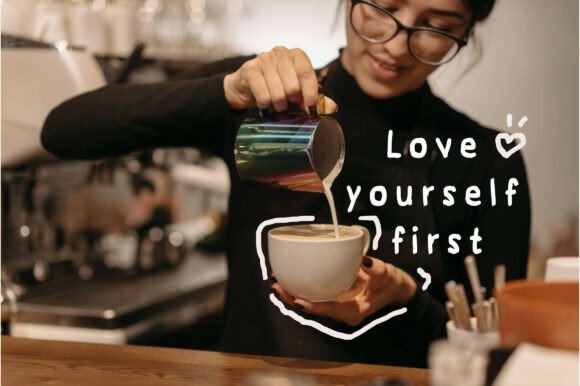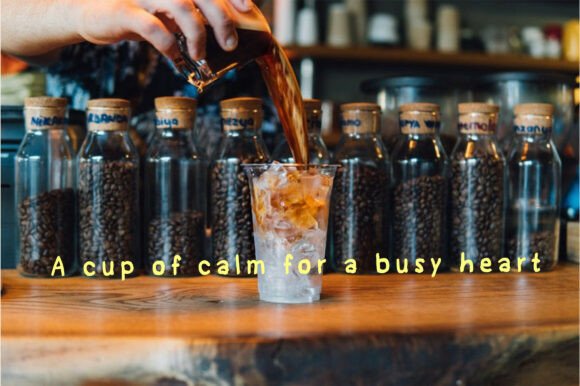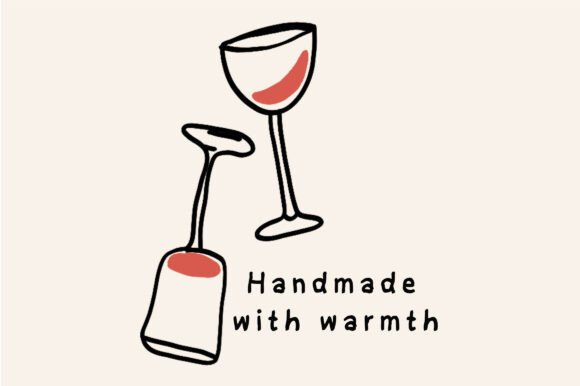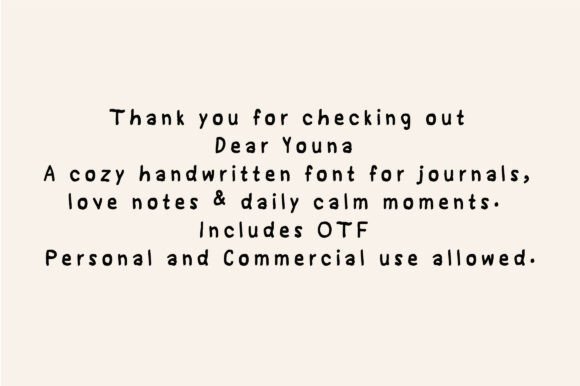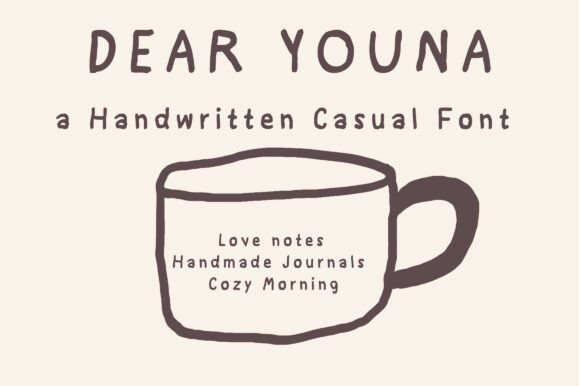
Introducing Dear Youna Font: The Cozy Handwritten Font for Your Creative Projects
Are you looking for a font that can add a touch of warmth and charm to your creative projects? Look no further than Dear Youna, a beautiful handwritten font that is perfect for a variety of applications. In this article, we’ll take a closer look at Dear Youna and explore its features, uses, and benefits.
What is Dear Youna Font?
Dear Youna is a carefully crafted handwritten font that is designed to bring a sense of coziness and personality to your designs. Each letter has been hand-drawn to create a natural, soft, and playful look that is perfect for a range of creative projects. Whether you’re working on a journal, love note, packaging, or branding project, Dear Youna is the ideal choice.
Key Features of Dear Youna Font
- Handwritten with love: Each letter has been carefully hand-drawn to create a unique and personal look.
- Natural and soft: The font has a gentle, organic feel that is perfect for creating a warm and inviting atmosphere.
- Playful and charming: Dear Youna has a playful touch that adds a sense of whimsy and fun to your designs.
- Perfect for pairing: The font pairs beautifully with minimalist designs, illustrations, and pastel color palettes.
Uses for Dear Youna Font
Dear Youna is a versatile font that can be used in a variety of creative projects, including:
- Greeting cards and quotes: Add a personal touch to your greeting cards and quotes with Dear Youna’s warm and inviting look.
- Logo and branding projects: Use Dear Youna to create a unique and memorable brand identity that stands out from the crowd.
- Scrapbooks and journals: Add a touch of personality to your scrapbooks and journals with Dear Youna’s playful and charming look.
- Product packaging and social media posts: Use Dear Youna to create eye-catching product packaging and social media posts that showcase your brand’s personality.
Benefits of Using Dear Youna Font
So why choose Dear Youna for your creative projects? Here are just a few benefits of using this beautiful font:
- Adds a personal touch: Dear Youna’s handmade look adds a personal touch to your designs, making them feel more authentic and unique.
- Creates a warm and inviting atmosphere: The font’s natural and soft look creates a warm and inviting atmosphere that draws the viewer in.
- Perfect for cozy lifestyle branding: Dear Youna is ideal for cozy lifestyle branding, adding a touch of warmth and charm to your brand’s identity.
- Easy to use: The font is easy to use and can be incorporated into a range of design projects, from print to digital.
Tips for Using Dear Youna Font
Here are a few tips for getting the most out of Dear Youna:
- Pair with minimalist designs: Dear Youna pairs beautifully with minimalist designs, creating a striking contrast between the simple design and the playful font.
- Use with pastel color palettes: The font looks beautiful with pastel color palettes, creating a soft and feminine look.
- Experiment with different sizes: Dear Youna looks great in a range of sizes, from small and delicate to large and bold.
Dear Youna is a beautiful handwritten font that is perfect for adding a touch of warmth and charm to your creative projects. With its natural, soft, and playful look, it’s ideal for a range of applications, from greeting cards and quotes to logo and branding projects. Whether you’re a designer, crafter, or DIY enthusiast, Dear Youna is a great choice for anyone looking to add a personal touch to their designs.